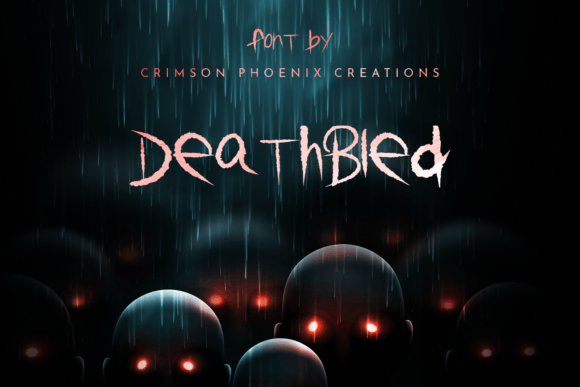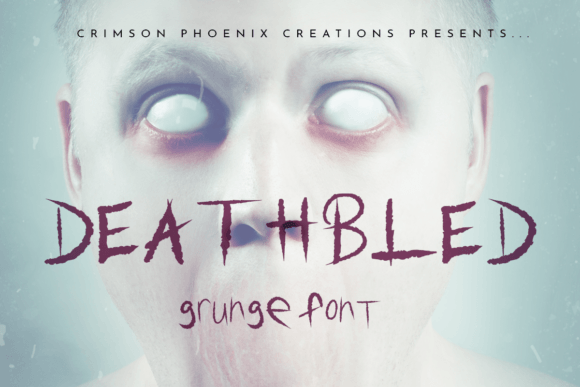
The Dark Allure of Deathbled Font: A Modern Handwritten Grunge Marvel
I still remember the night I was working on a horror-themed project for a client, and I was struggling to find the perfect font to convey the eerie atmosphere. The client wanted something that would send shivers down the spine, but I was stuck in a design rut. That’s when I stumbled upon the Deathbled Font, a captivating fusion of edgy design and classic calligraphy that embodies the essence of horror themes. It was love at first sight! ✨
- 💀 **Edgy yet elegant**: Deathbled Font perfectly balances rough, grungy textures with refined calligraphic flair.
- 🔍 **Highly versatile**: This font can be used for a wide range of projects, from horror-themed designs to edgy branding and packaging.
- 👻 **Atmosphere and suspense**: This font superbly captures the essence of horror themes, instilling suspense and unease in your designs.
While Deathbled Font is an incredible design asset, there are a few minor quirks to be aware of: 🤔
- ⚠️ **Glyph overload**: With so many glyphs and stylistic alternates available, it can be overwhelming to navigate the font at first.
Deathbled Font was born from the creative mind of a designer who sought to craft a typography marvel that would evoke the eerie atmosphere of horror themes. Inspired by the darker corners of the design world, this font embodies the perfect blend of edginess and elegance. While the designer’s true identity remains a mystery, their creation has sent shockwaves throughout the design community.